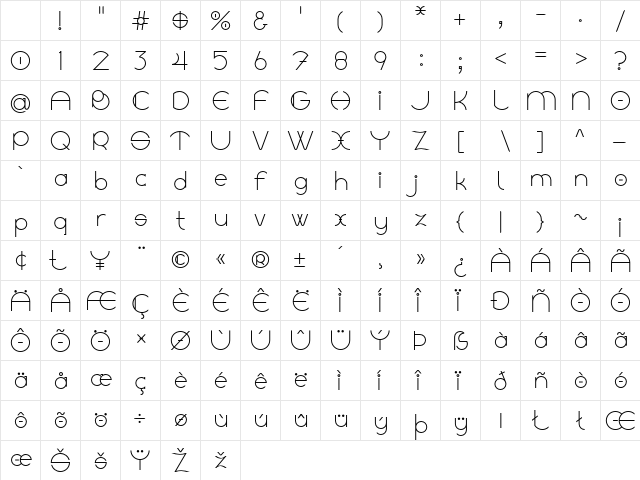
Complete Linyat Bilog Regular glyph index. Displaying only characters natively supported by Linyat Bilog Regular font.
Linyat Bilog is a composed and adaptable typeface that performs quietly and consistently across a wide range of design contexts.